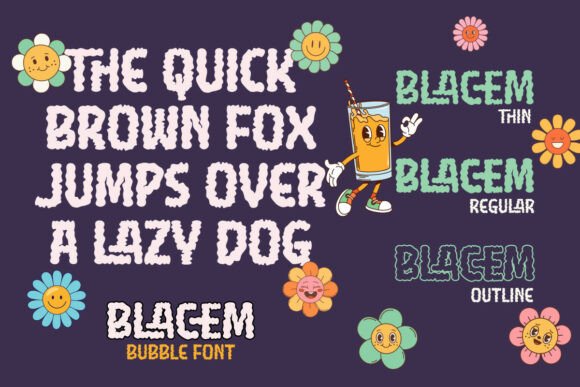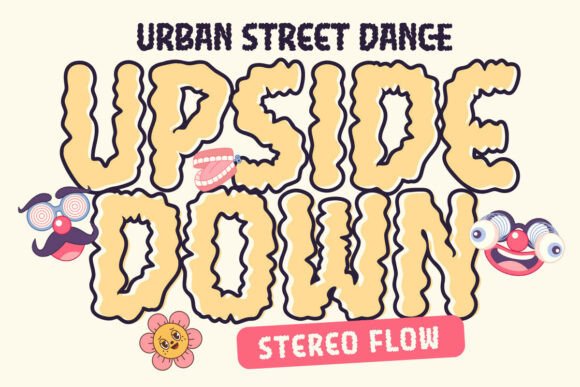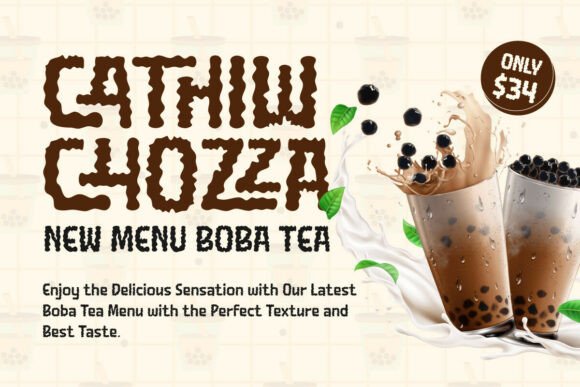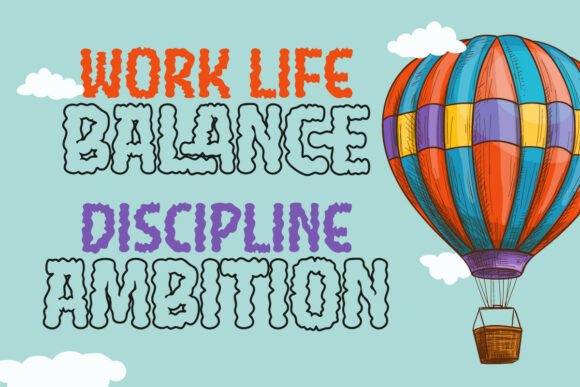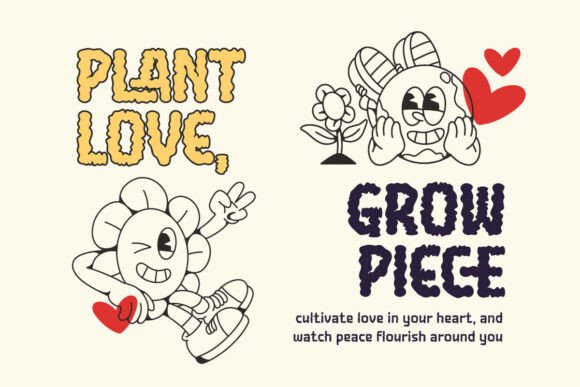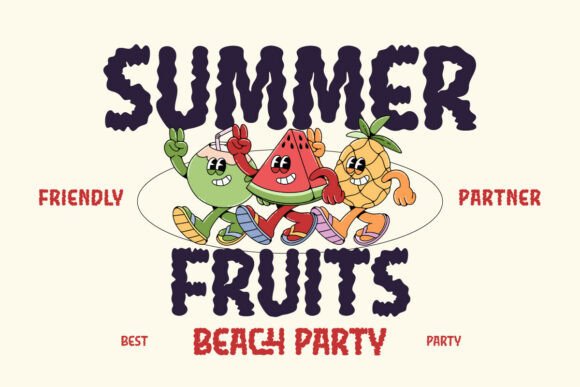
Discover the Playful World of Blacem Font
Have you ever been in the middle of a design project, and suddenly, you’re stuck on finding the perfect font? I recall a recent experience where I was working on a children’s book cover, and my client asked for something “fun, yet professional.” After hours of searching, I stumbled upon Blacem Font, and it completely transformed my design. In this article, we’ll dive into the world of Blacem, exploring its features, uses, and everything in between.
What Makes Blacem Special?
Blacem is a playful and bold display bubble font that brings fun, lightness, and a sense of joy to any creative project. With three versatile styles—Thin, Regular, and Outline—Blacem gives you the freedom to mix and match for eye-catching headlines, children’s book covers, packaging, posters, and cartoon visuals. Each character in Blacem is designed with rounded shapes, a bubbly personality, and smooth contours, making it perfect for designs that aim to be cheerful and expressive.
An Honest Review of Blacem Font
What I Love About Blacem ✨
- âś… Versatility: The three styles (Thin, Regular, and Outline) offer endless possibilities for creative combinations.
- âś… Ease of Use: Blacem is incredibly easy to use, even for those who are new to design or typography.
- âś… Fun and Expressive: The bubbly personality and smooth contours of each character make it perfect for designs that need a playful touch.
- ⚠️ Limited Use Cases: While Blacem excels in playful designs, it might not be the best fit for more formal or corporate projects.
- ⚠️ Glyph Limitations: As with any font, there might be limitations to the number of glyphs or special characters available.
The Story Behind Blacem Font
Blacem was designed with the intention of creating a playful and expressive font that would bring joy to designers and their audiences. Inspired by the simplicity and charm of childhood, Blacem’s creator aimed to craft a font that would be both fun and versatile.
Q: What type of designs is Blacem best suited for?
A: Blacem excels in playful designs, such as children’s book covers, packaging, posters, and cartoon visuals.